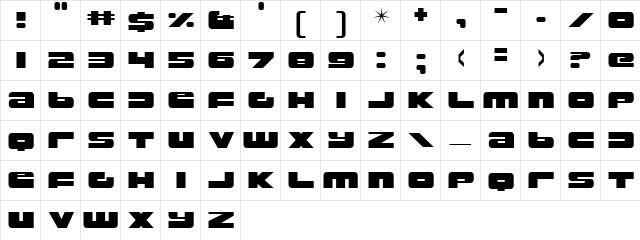
Rustproof Body Regular
| Foundry | Larabie Fonts |
Design Context for Rustproof Body Typeface
Rustproof Body is a composed and adaptable typeface that performs quietly and consistently across a wide range of design contexts.